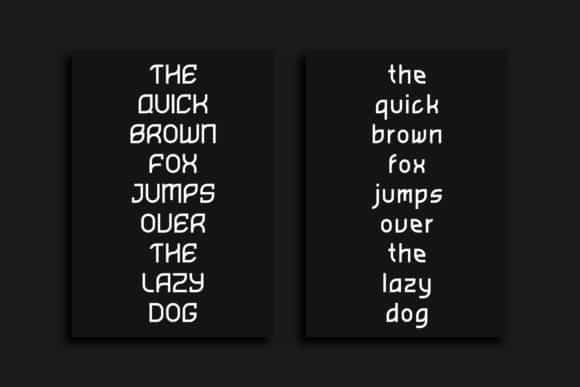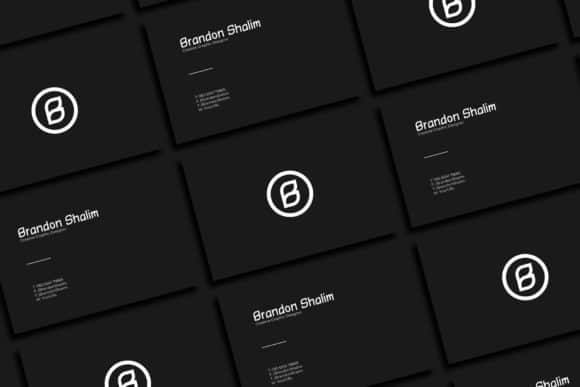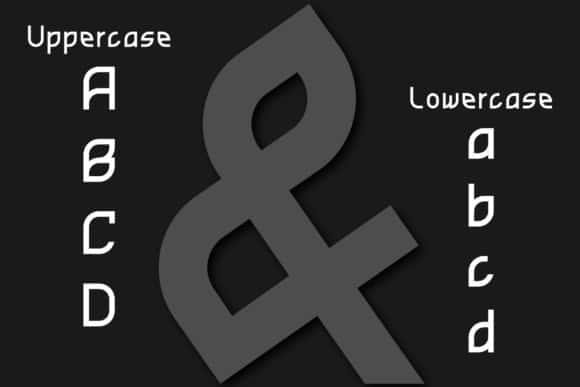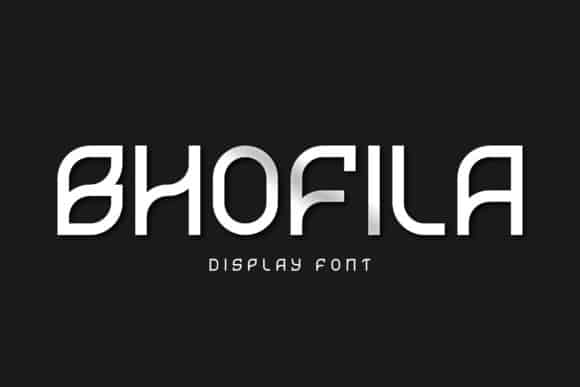
Bhofila Display Font
Bhofila Display Font is a strong and wide sans serif display font with a bit of technology and scifi theme. Gardane rounded corners and wide appearance makes it authoritive but friendly in a way.This typeface is designed and shared by makasimasestudio. A little bit quirky, this font looks incredibly adept on a wide variety of contexts! Bhofila is perfect for logo, headlines, poster, and many other things that needs a strong impact.